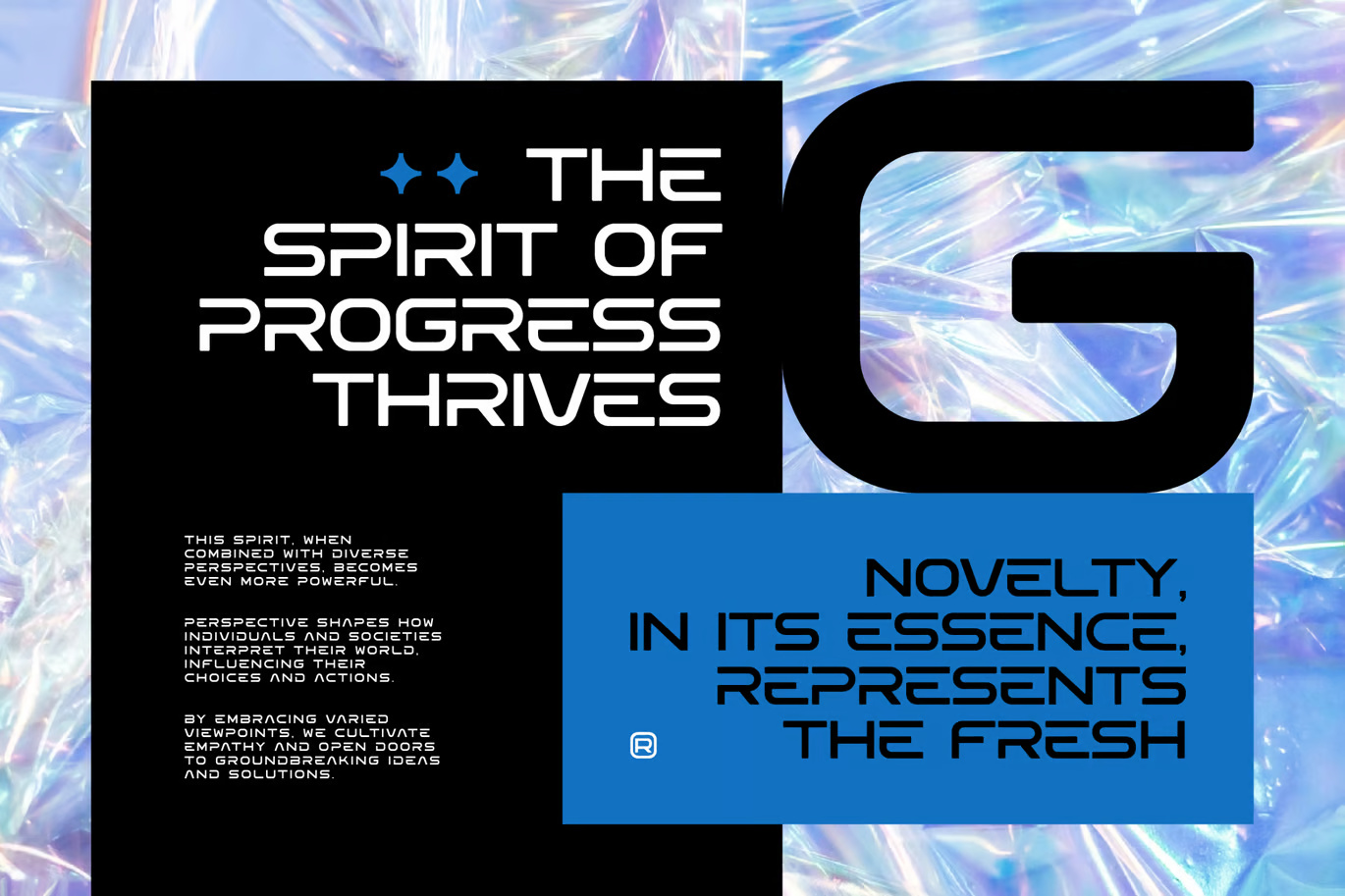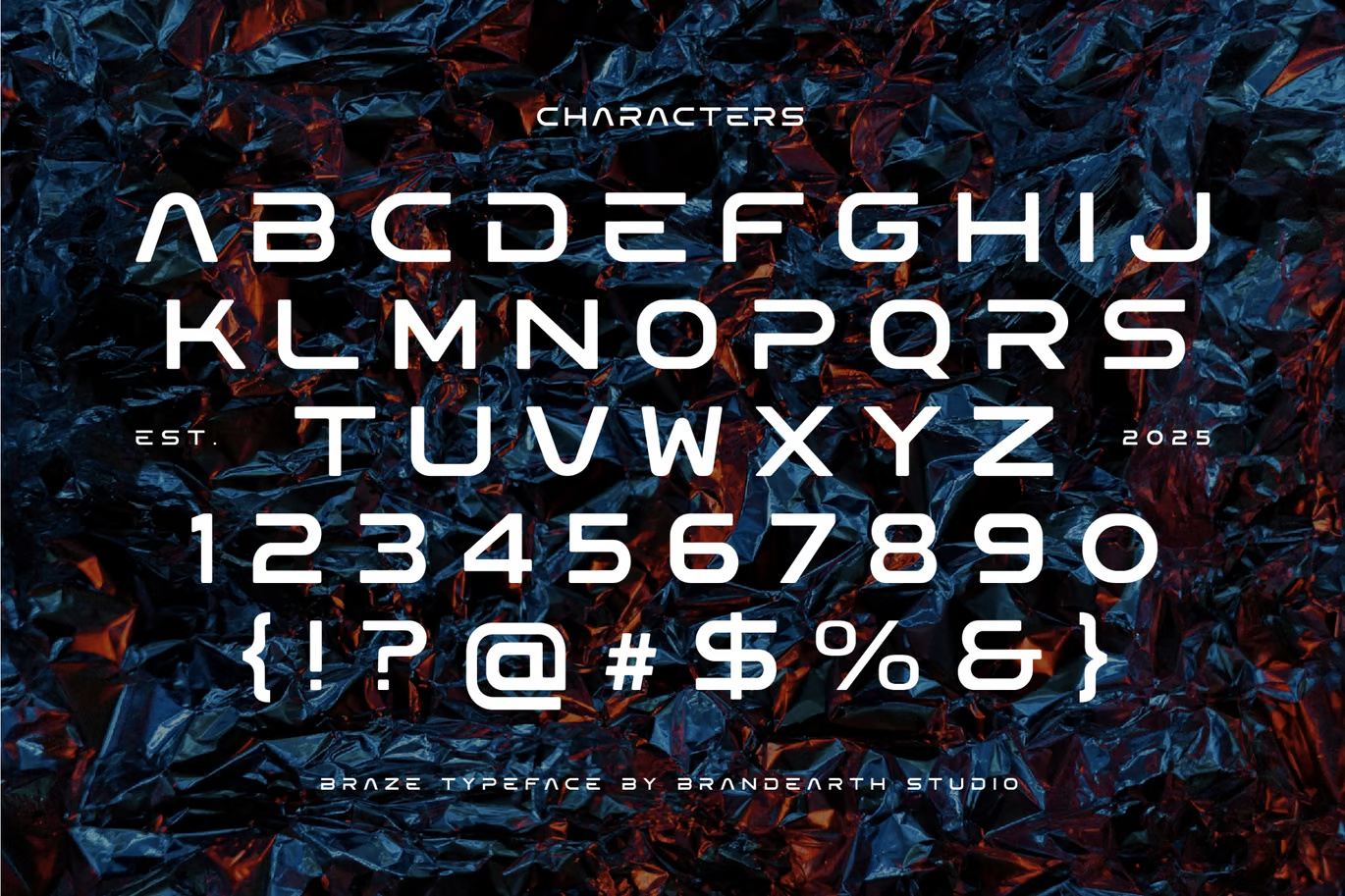
Braze Creative Technology Font
Braze Creative Technology Font is a sleek and modern typeface designed with a futuristic and tech-inspired aesthetic. It features clean lines, sharp edges, and a dynamic structure, making it ideal for digital designs, branding, and high-tech presentations. The font’s contemporary style ensures readability while maintaining a bold and innovative look.
Braze Creative Technology Sans Serif Font